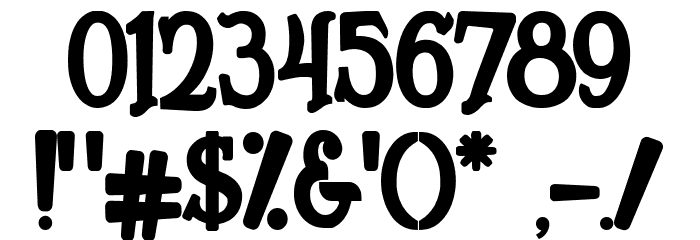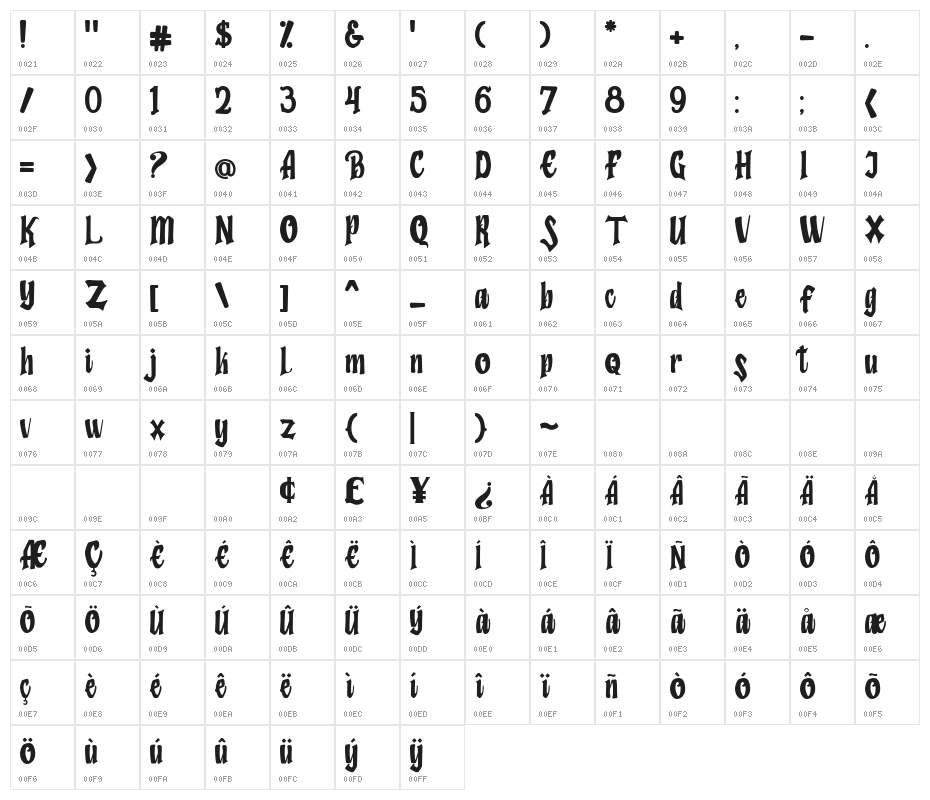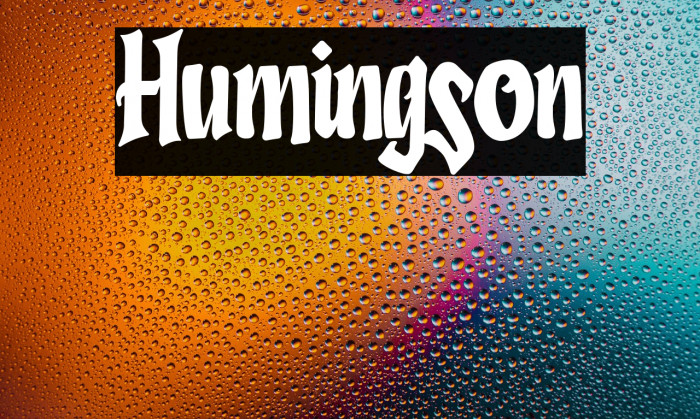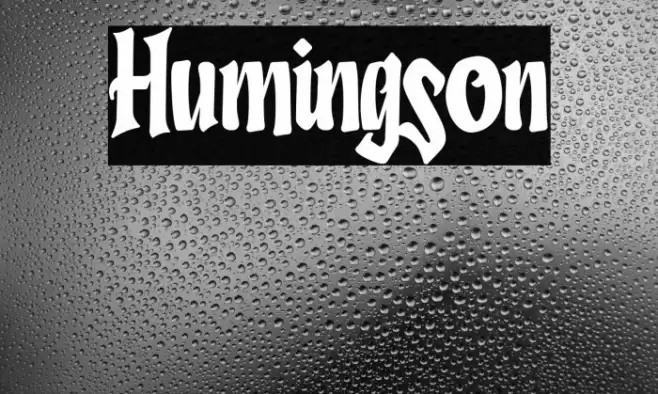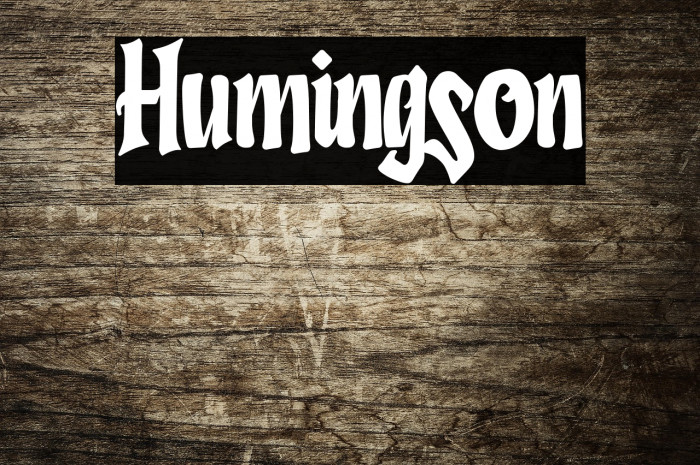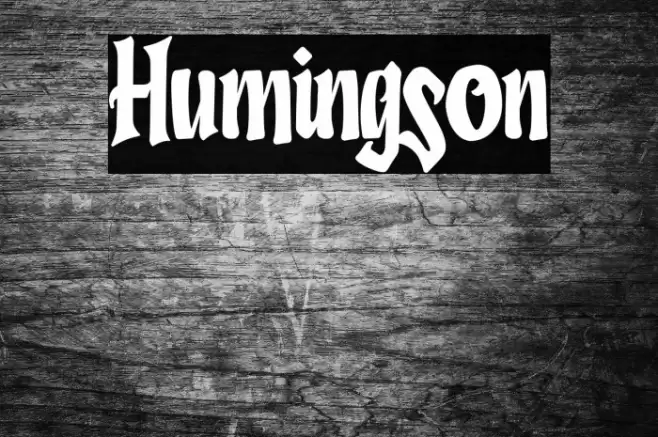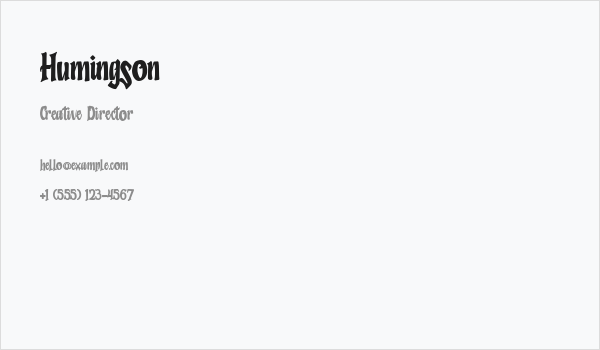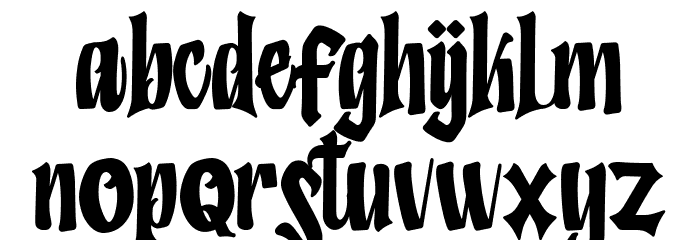
Humingson Font
Humingson Description
This font features a bold and dramatic style with a strong presence. The characters are designed with sharp, angular edges and a slightly condensed form, giving them a distinctive and impactful look. The uppercase letters are particularly striking, with a Gothic influence that adds a sense of tradition and authority. The lowercase letters maintain the same boldness, ensuring consistency across text. Numbers and special characters are crafted with the same attention to detail, making them suitable for a variety of uses. The overall design is reminiscent of medieval script, yet it retains a modern twist that makes it versatile for contemporary applications.